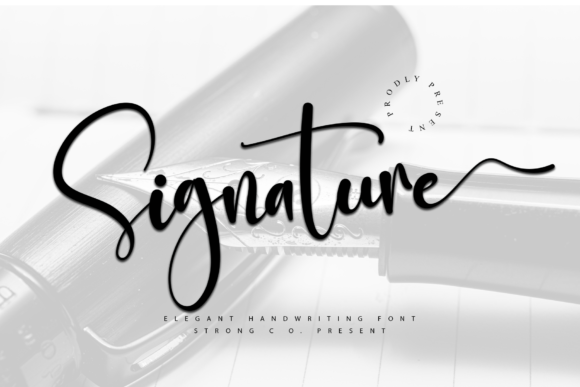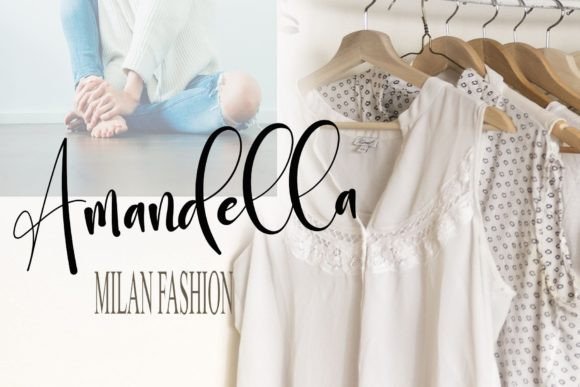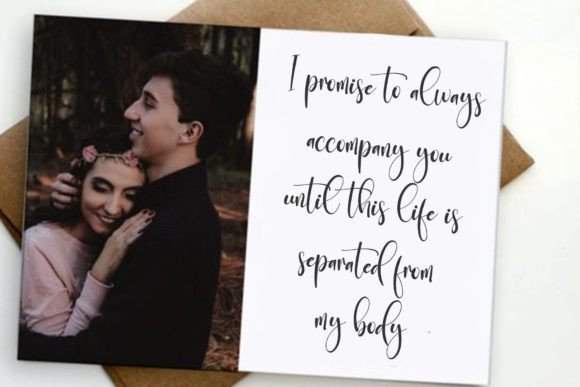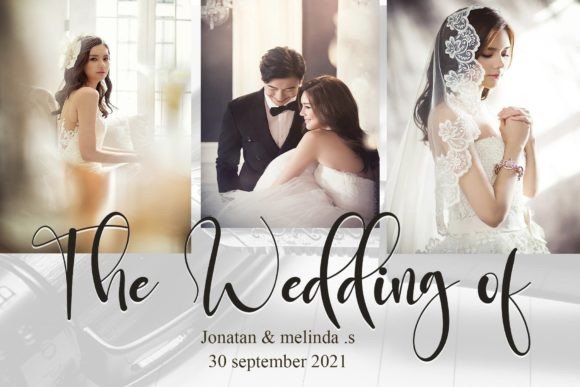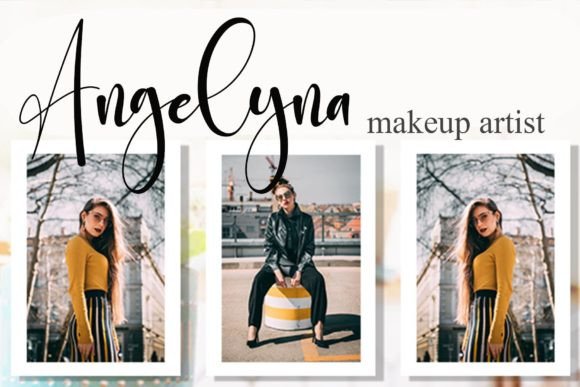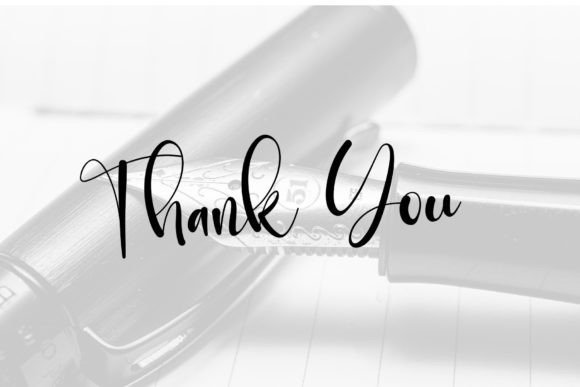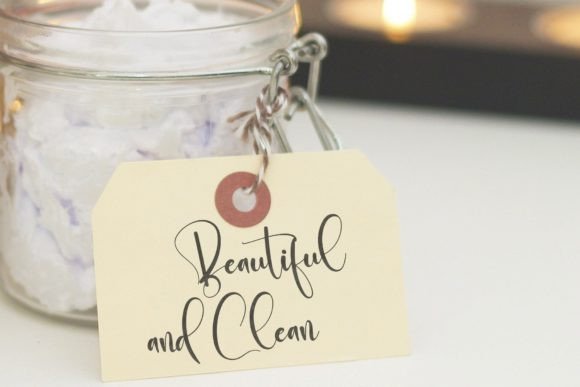
Signature is an enchanting handwritten font that brings a touch of elegance and romance to your projects. This versatile font has a wide spectrum of applications, ranging from greeting cards to headlines, making it a valuable asset for various creative endeavors.
The enchanting quality of Signature lies in its handwritten charm, adding a personal and authentic feel to your text. Imagine using this font for greeting cards, where its romantic and elegant appearance enhances the sentiment and creates a memorable impression.
For headlines and titles, Signature becomes a stylish choice, capturing attention with its unique and sophisticated design. The font’s versatility ensures that it adapts seamlessly to different contexts, maintaining a romantic and enchanting atmosphere.
Picture Signature gracing the pages of invitations or love letters, where its captivating and handwritten strokes contribute to a romantic and intimate ambiance. The font elevates the overall aesthetic, creating a sense of timeless charm.
In branding projects, Signature adds a touch of personality and sophistication. Whether applied to logos, packaging, or other brand elements, the font ensures a cohesive and stylish presentation, resonating with a romantic feel.
The wide spectrum of applications for Signature makes it a go-to choice for a variety of design projects. Its enchanting and romantic nature ensures that your text stands out with a sense of elegance and authenticity.
In conclusion, Signature is more than just a font; it’s a design asset crafted to bring enchantment and romance to your projects. Whether used for greeting cards, headlines, or branding, this versatile font guarantees a romantic feel that enhances the overall appeal of your next creative endeavor.